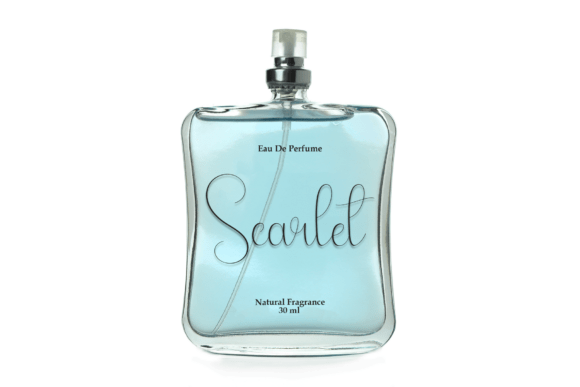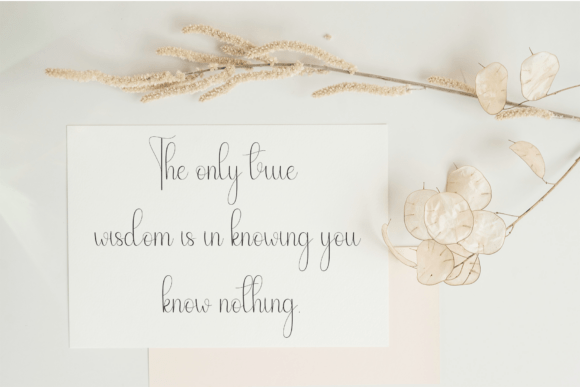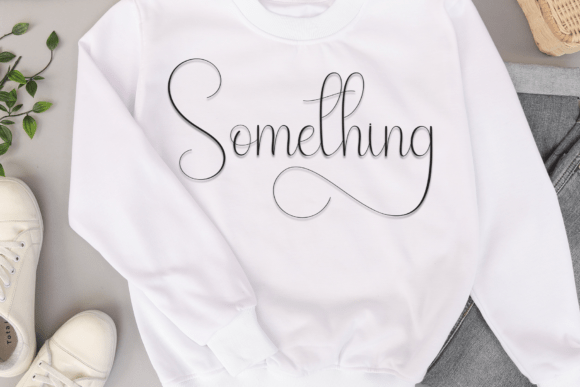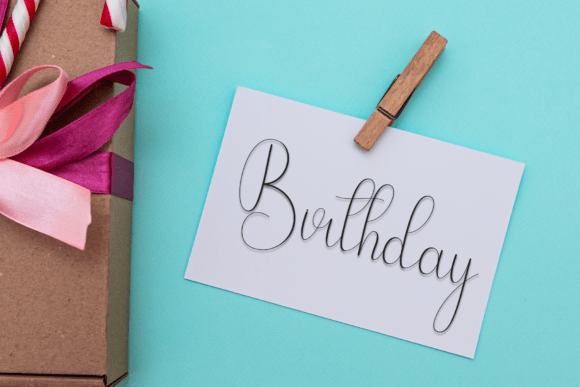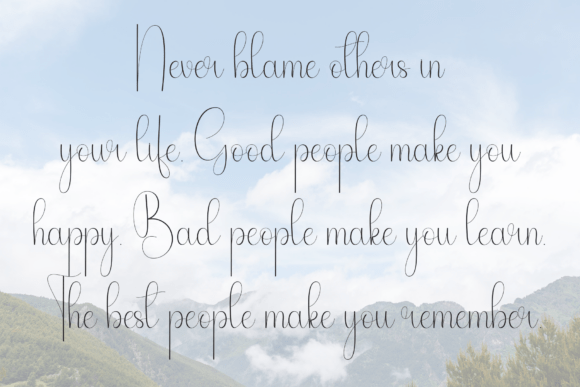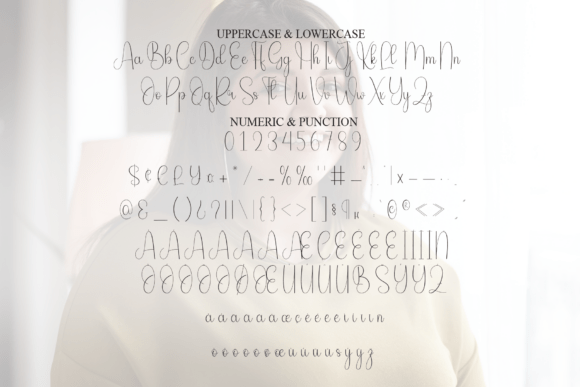
Introducing Chubby Font: Elevate Your Designs with Elegance and Charm
In the world of typography, fonts play a crucial role in conveying the tone and personality of a design. For designers and crafters looking to add a touch of sophistication and elegance to their work, Chubby Font is an excellent choice. This stylish handwritten script font is designed to exude charm and refinement, making it perfect for a variety of applications, from branding and invitations to stationery and more.
The Characteristics of Chubby Font
Chubby Font is distinguished by its fluid, graceful strokes that dance across the page with a natural ease. The smooth curves and refined lines create a timeless look that is both elegant and sophisticated. This font is meticulously crafted to provide a personal touch to any design, setting it apart from more generic and traditional fonts.
Key Features of Chubby Font
- Fluid and Graceful Strokes: The fluidity of Chubby Font gives it a dynamic and lively feel, making it perfect for designs that require a bit of personality.
- Elegant and Sophisticated: The smooth curves and natural flow of the font lend it an air of sophistication, ideal for high-end branding, luxury invitations, and premium stationery.
- Versatile: Chubby Font is incredibly versatile, suitable for a wide range of design projects including logos, business cards, wedding invitations, and more.
- Handwritten Script: As a handwritten script font, Chubby adds a personal and unique touch to any design, making it memorable and engaging.
Applications of Chubby Font
The versatility of Chubby Font makes it suitable for various design applications. Here are some of the ideal uses for this beautiful font:
- Branding: Use Chubby Font to create a luxurious and memorable brand identity. Its elegance and charm can help elevate your brand’s image.
- Invitations: Whether it’s a wedding invitation, a birthday party invite, or any other special occasion, Chubby Font adds a touch of sophistication and personal warmth.
- Stationery: Elevate your stationery designs with Chubby Font. It’s perfect for letterheads, greeting cards, and notebooks, providing a refined and personalized feel.
- Digital Content: Chubby Font can also be used in digital content such as blog headers, social media graphics, and website titles to add a touch of elegance and personality.
Chubby Font is a stylish and elegant handwritten script font that can add a touch of sophistication and charm to any design. Its fluid strokes, smooth curves, and natural flow create a timeless and refined look, making it perfect for designers and crafters looking to elevate their work. Whether you’re working on branding, invitations, stationery, or digital content, Chubby Font is an excellent choice for adding a personal and luxurious touch.